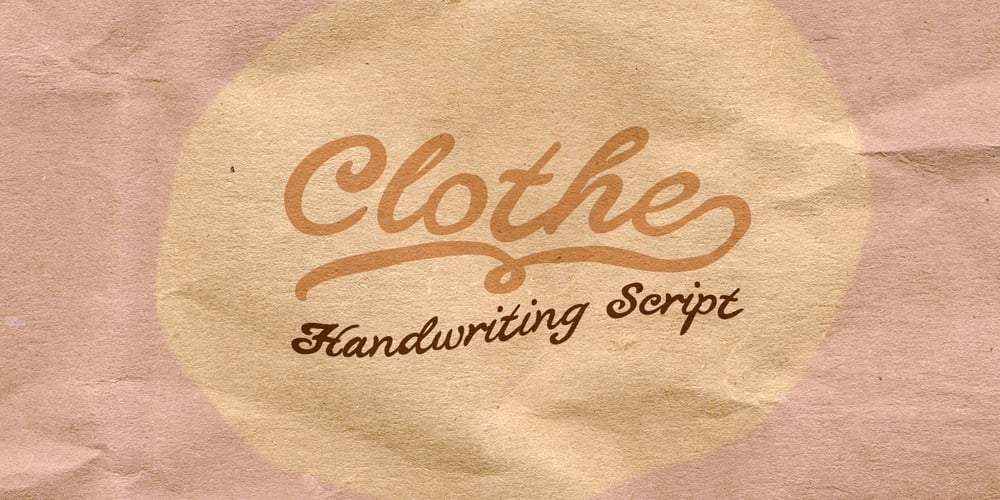
Clothe Font Family was designed by Måns Grebäck and published by Mans Greback. Clothe contains 1 styles and family package options. Clothe is a vintage handwriting typeface. The genuine calligraphic style gives any project a handmade feeling.. Drawn and put together by Måns Grebäck, this font supports hundreds of languages. Use [ ] { } for swashes. Example: Clothe[